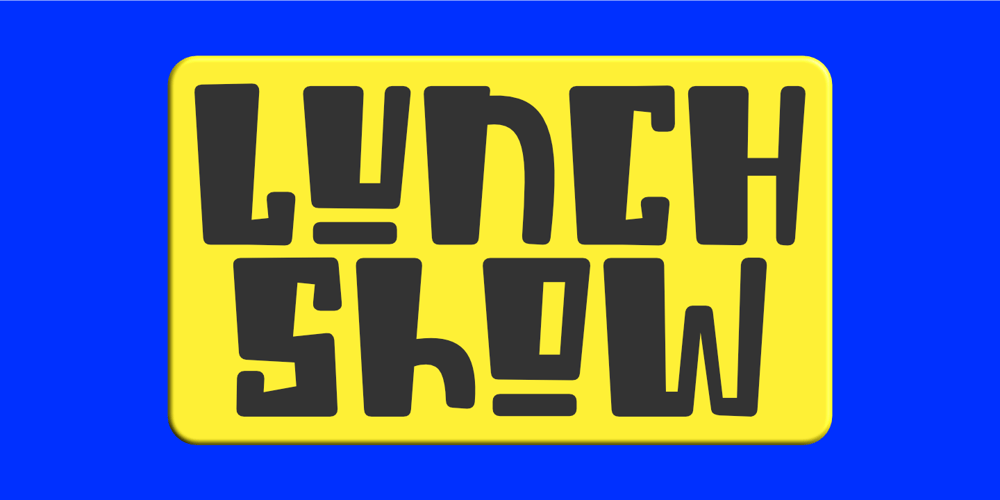
Lunch Show Font Family was designed by Aldy Sidik and published by Epiclinez. Lunch Show contains 1 styles and family package options. Lunch Show is a cute, friendly yet thick lettered display font. It embodies playfulness and it’s the right choice for product packaging, logotype, games, children, or school projects.So what’s included: Basic Latin A-Z & a-z. Numbers, symbols, and punctuations Multilingual Support. Accented Characters : ÀÁÂÃÄÅÆÇÈÉÊËÌÍÎÏÑÒÓÔÕÖØŒŠÙÚÛÜŸÝŽàáâãäåæçèéêëìíîïñòóôõöøœšùúûüýÿžß Thank you